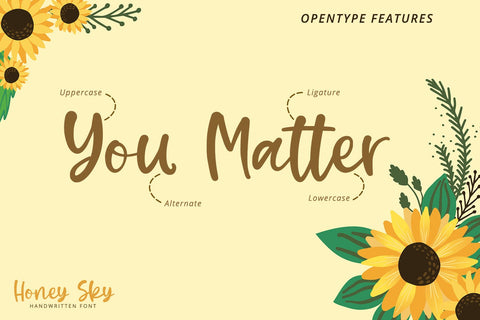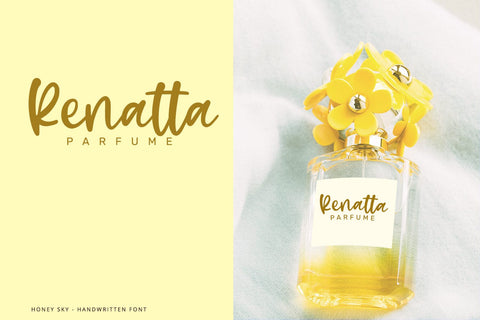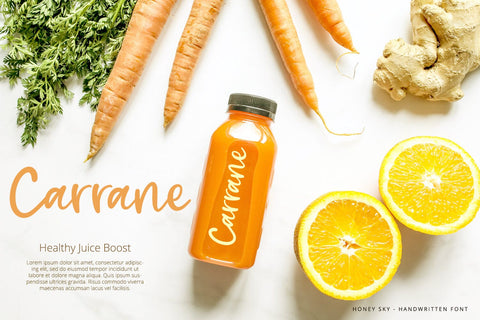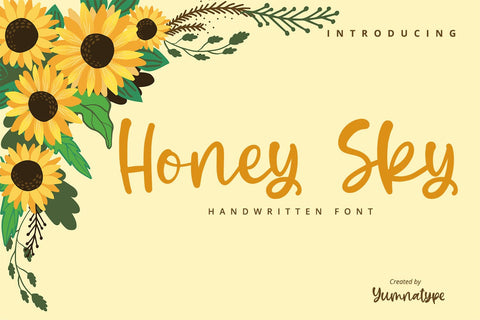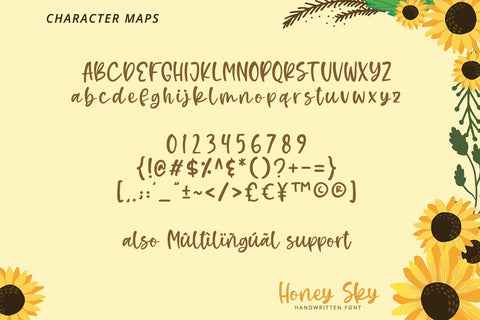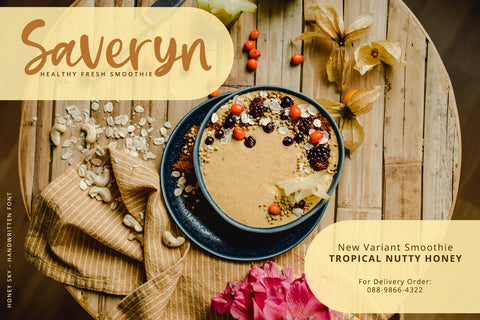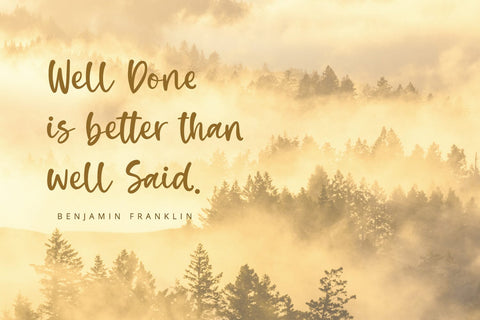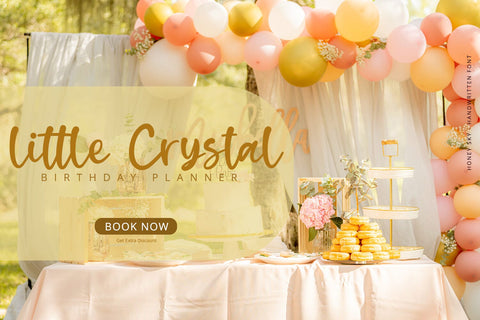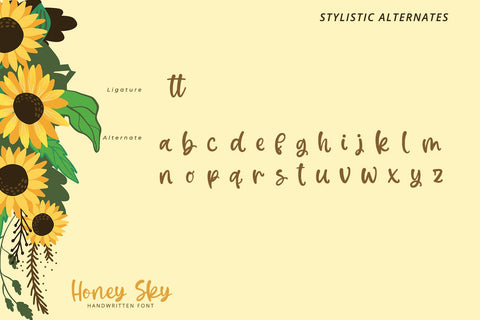
Honey Sky-Handwritten Font
Honey Sky is a handwritten font with a natural and unique design will make your project more beautiful. The font is suitable for your branding project, printing, logos dan wedding.
- Standard Ligatures
by Yumnatype